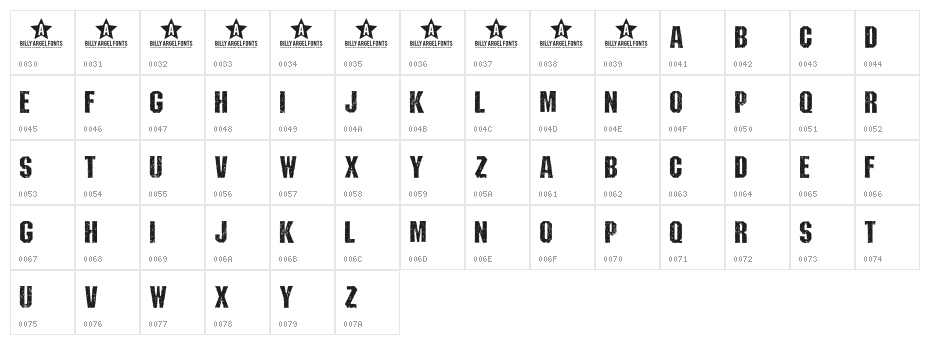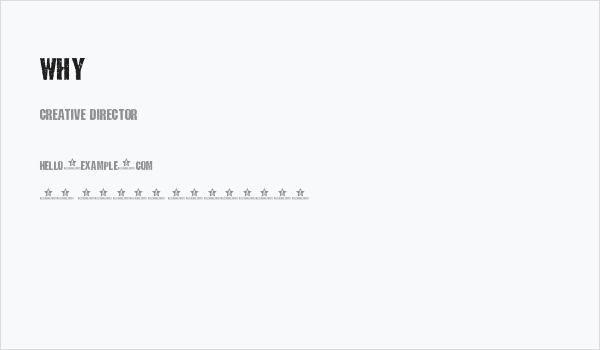
WHY Font
WHY Description
This font features a bold, distressed style with a rugged, textured appearance. The uppercase letters are prominently displayed with a rough, grunge effect that gives them a worn and weathered look. The characters are evenly spaced, maintaining a consistent width throughout. This font is ideal for projects that require a strong, impactful presence, such as posters, album covers, or branding materials that aim to convey a sense of edginess or rebellion. Its unique style makes it stand out, capturing attention with its bold and gritty aesthetic.
Overall StyleGrunge, Edgy
Proposed ProjectsIdeal for posters, album covers, and edgy branding materials.